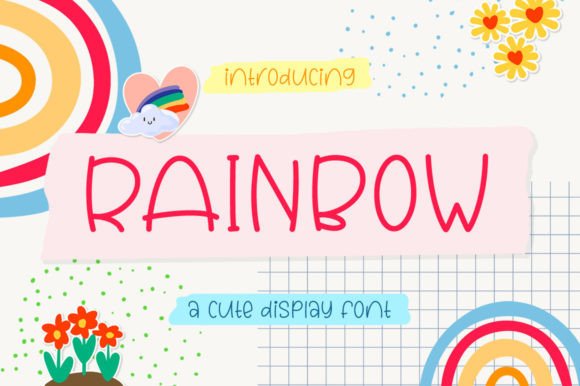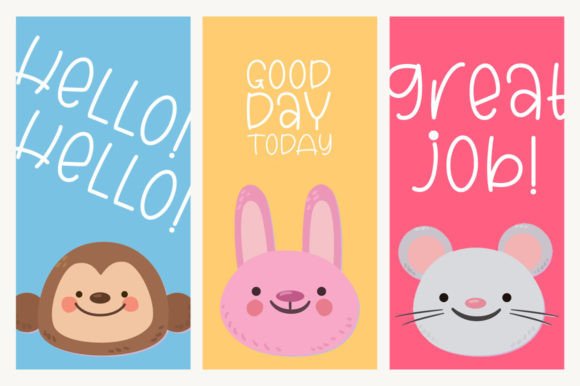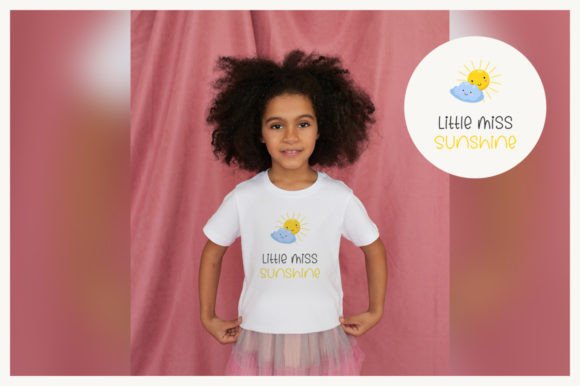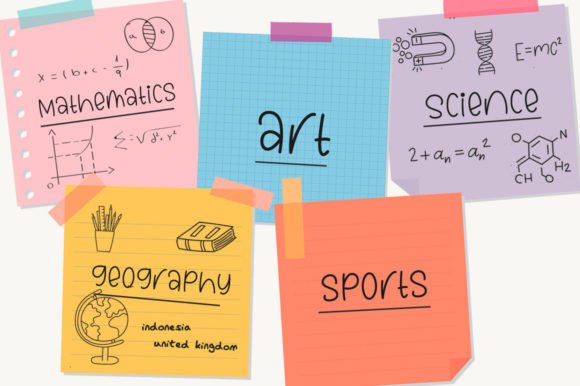
Rainbow Font
About Rainbow Font
“Rainbow” is a fun and smart-looking handwritten font that adds a playful and stylish touch to your design projects. This font is an excellent choice for a wide range of applications, including invitations, thank you cards, quotes, greeting cards, logos, business cards, and any other design that benefits from a customized and lively touch.
The font’s handwritten style is characterized by its cheerful and engaging characters. It brings a sense of vibrancy and personality to your designs, making them visually appealing and memorable. “Rainbow” can enhance the overall aesthetics of your projects, making them stand out and leave a lasting impression.
In the world of design, fonts play a pivotal role in conveying mood, style, and visual identity. “Rainbow” excels in these aspects by offering a handwritten font that is both fun and visually captivating. Its aesthetics infuse your designs with a sense of playfulness and customization, making them engaging and distinctive.
In summary, “Rainbow” is more than just a font; it’s a fun and stylish design tool that can enhance your creative projects with its lively and smart-looking style. Whether you’re working on invitations, logos, or any design that benefits from a touch of customization and playfulness, “Rainbow” is the font that can help you craft designs that are visually appealing and full of character.